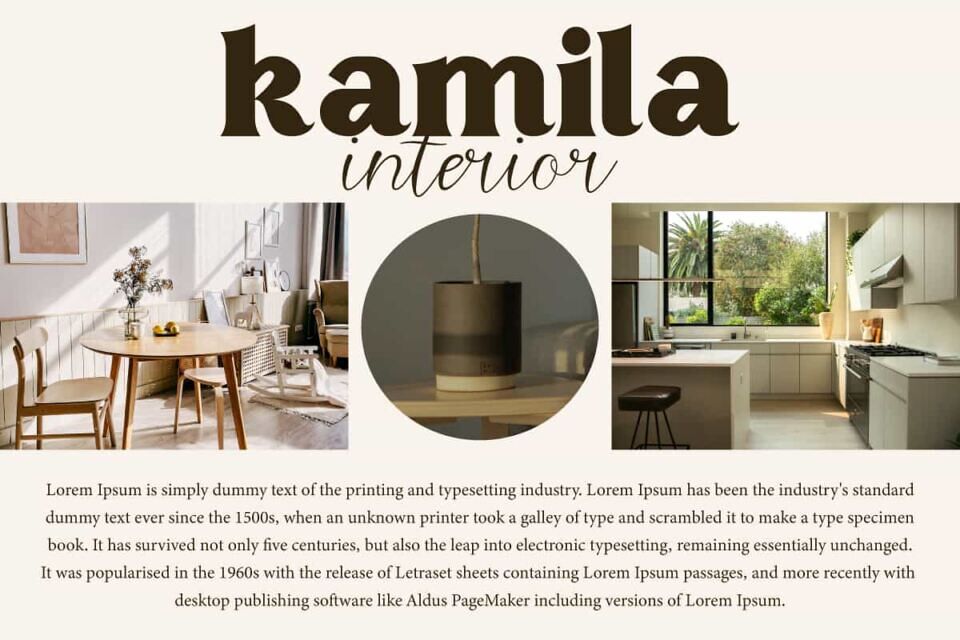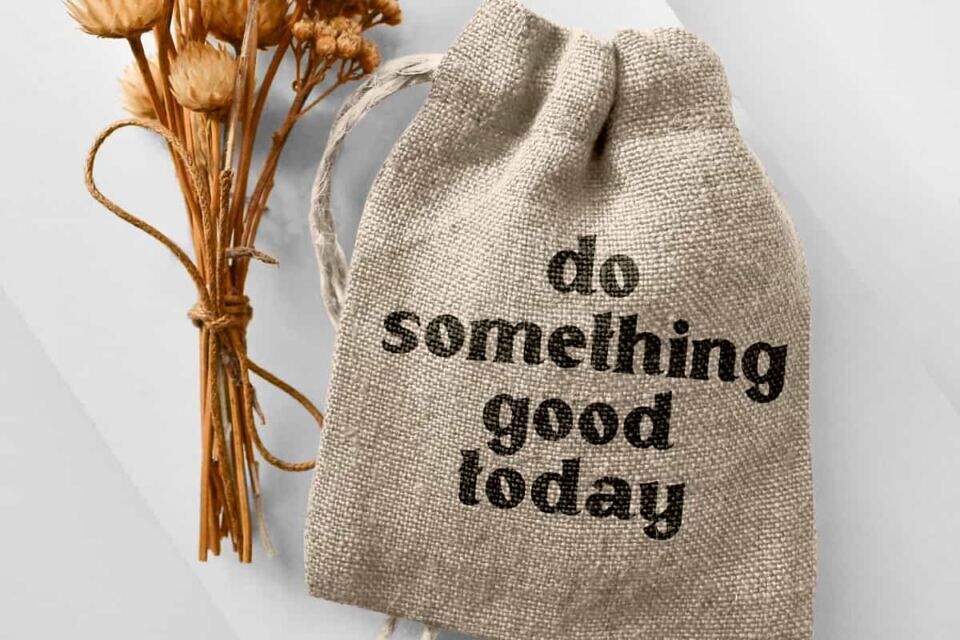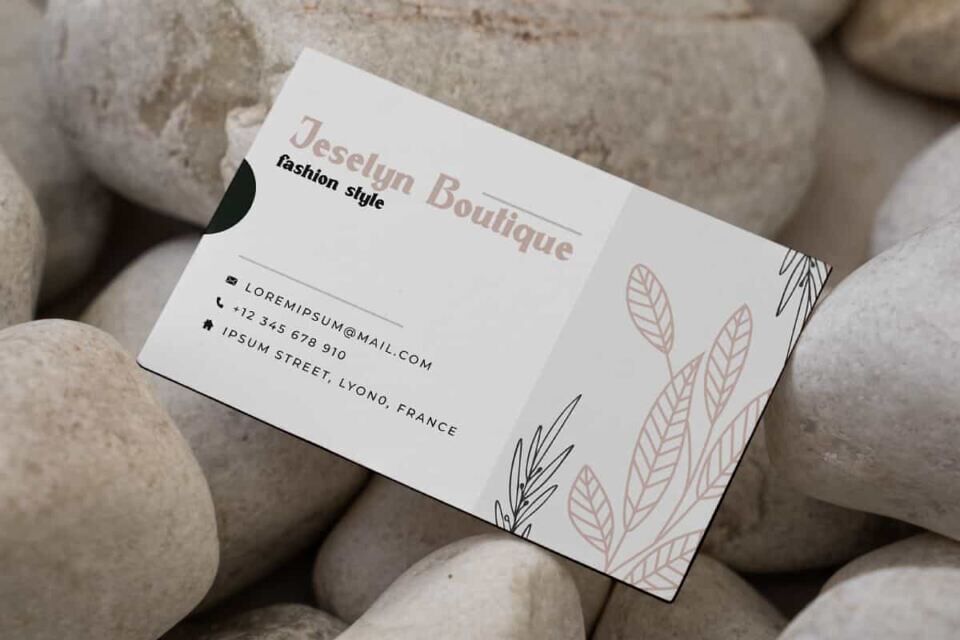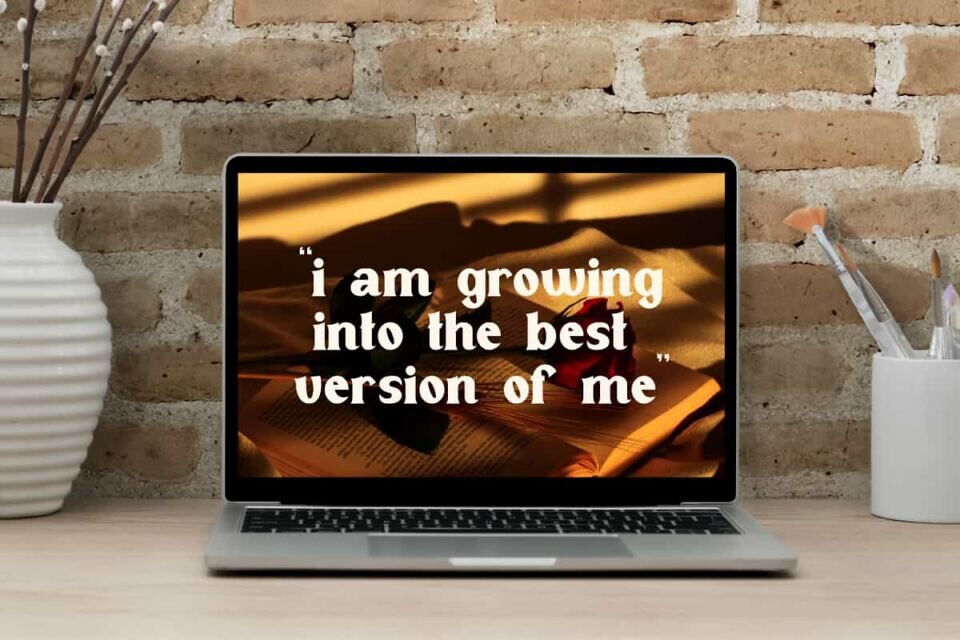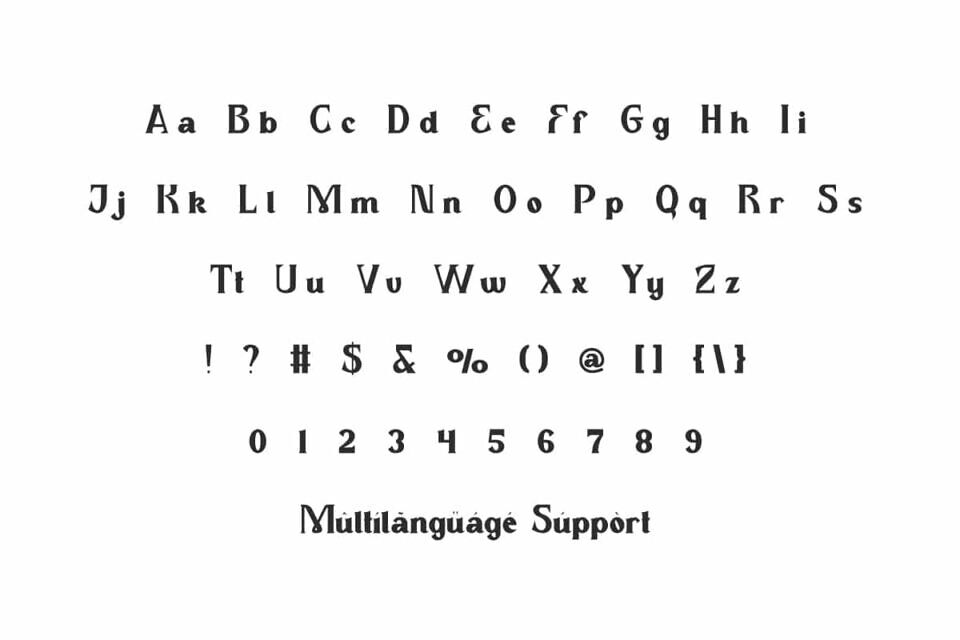
Ernest Zuriel Font is a display serif font with vintage and gothic styles. This font will be perfect for various projects, such as brand image, brochure, label, magazine cover, mockup template, packaging, poster, quotes, signage, stationery, website, and more!
Ernest Zuriel Font includes a complete set of Uppercase and Lowercase Basic Characters, Numbers, Punctuation, and Symbols. This font is sturdy with artistic curves giving a classy and unique impression. Making it a perfect choice for a variety of fields, such as advertising, beauty product, boutique, cafe, craft, event or wedding organizer, photography, real estate, restaurant, spa, travel, and so on.